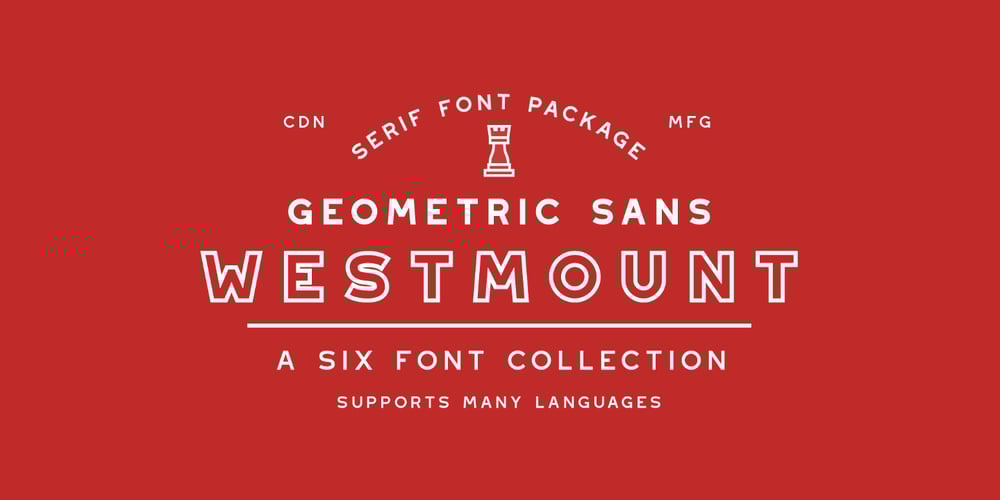
Westmount Font Family was designed by Greg Nicholls and published by Rook Supply. Westmount contains 6 styles and family package options. Westmount is a geometric grotesque sans font that is both versatile and contemporary. The wide spacing between letters gives your text room to breathe and have the perfect amount of presence and balance. The strong capital letters are perfect for clean layouts and timeless branding. Try using Westmount Outline for a clean classic look.